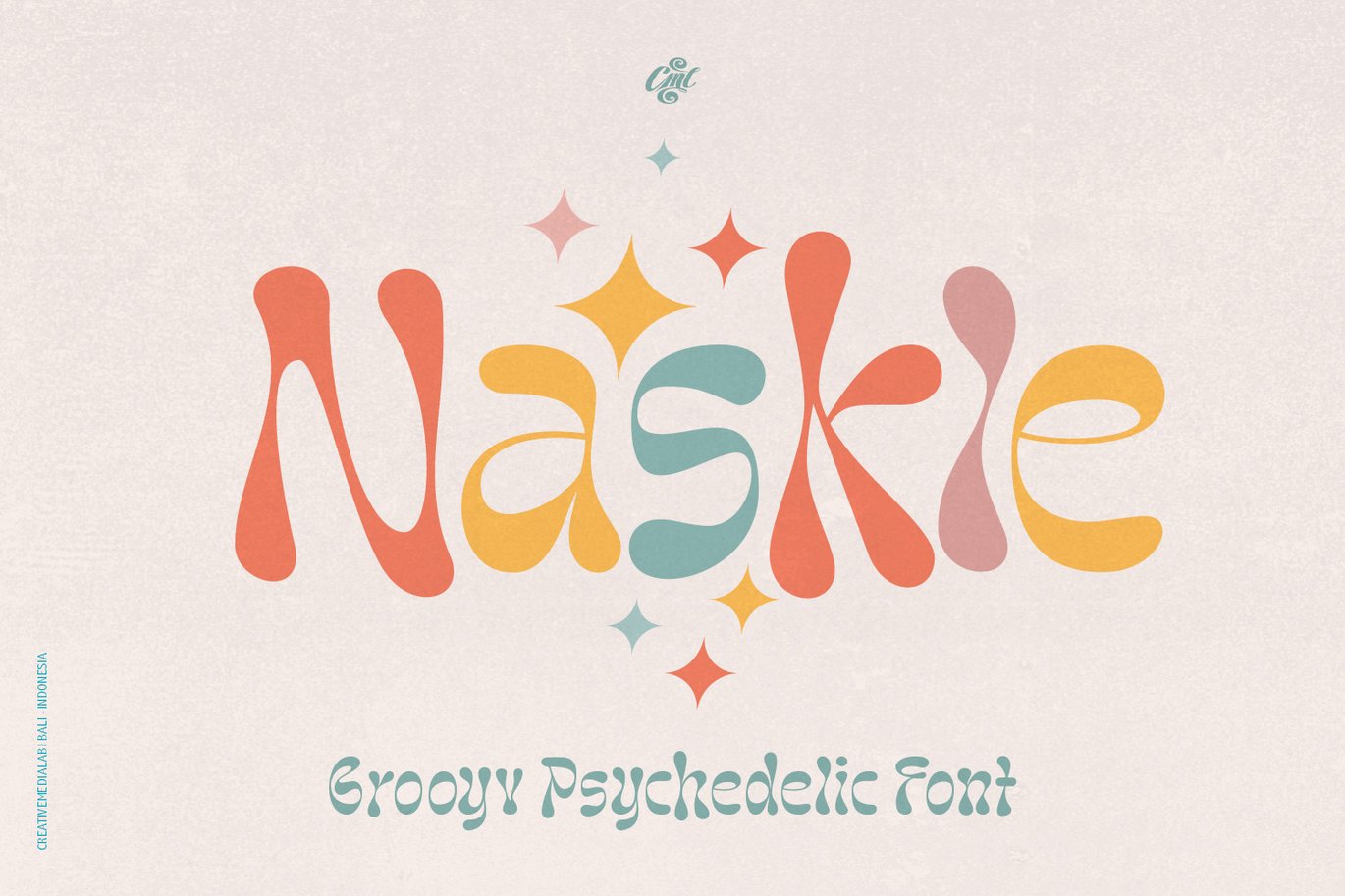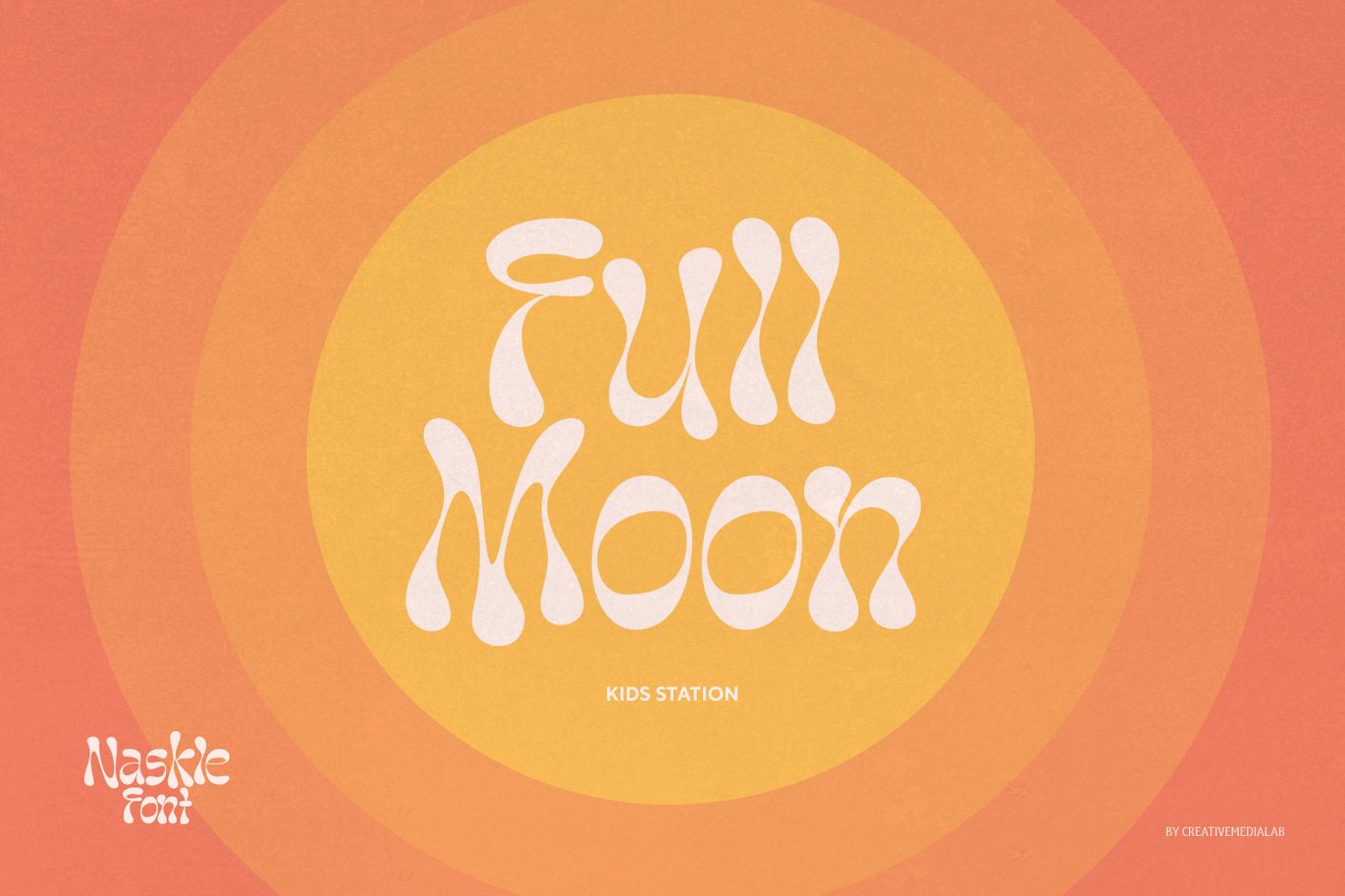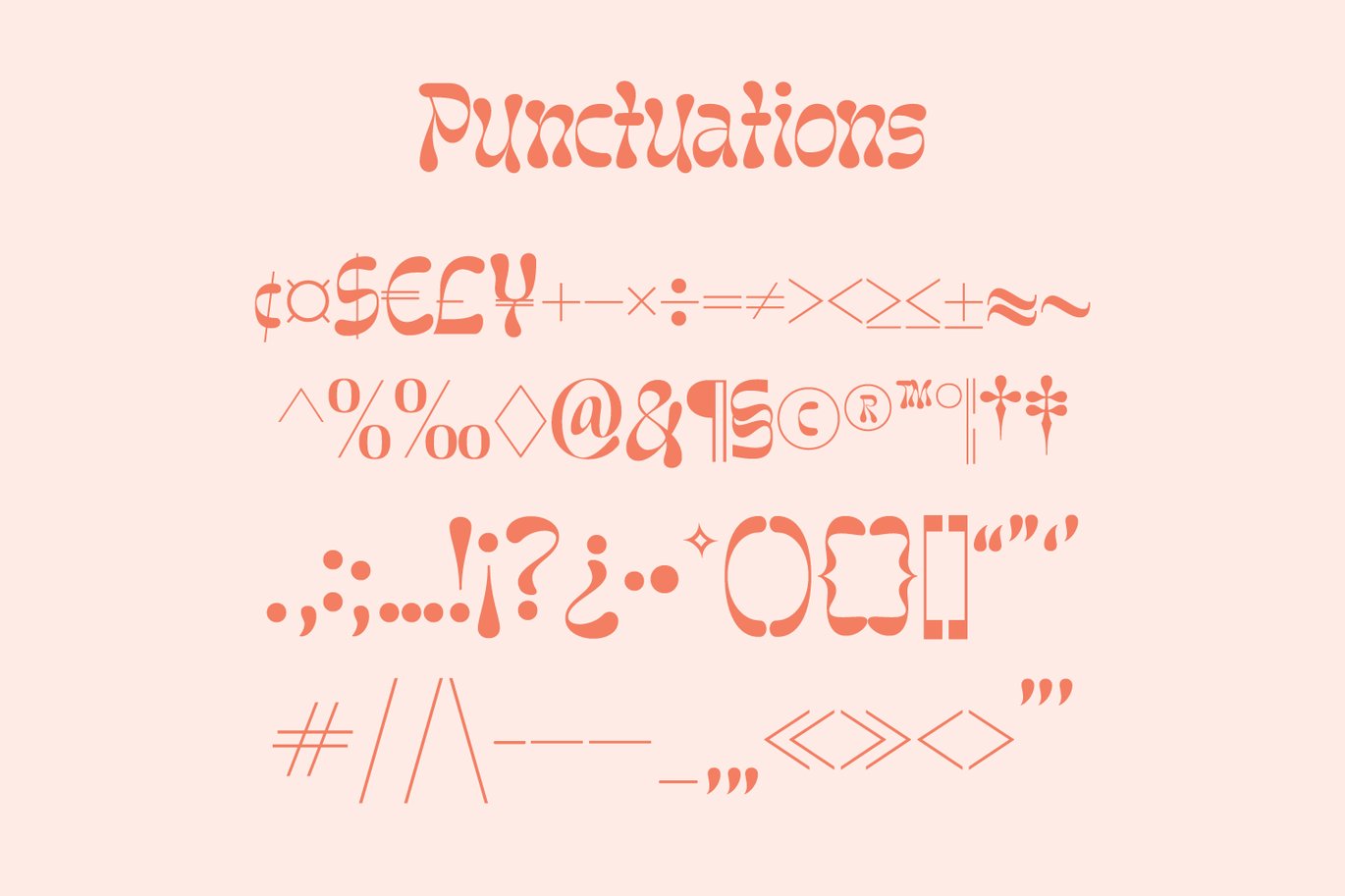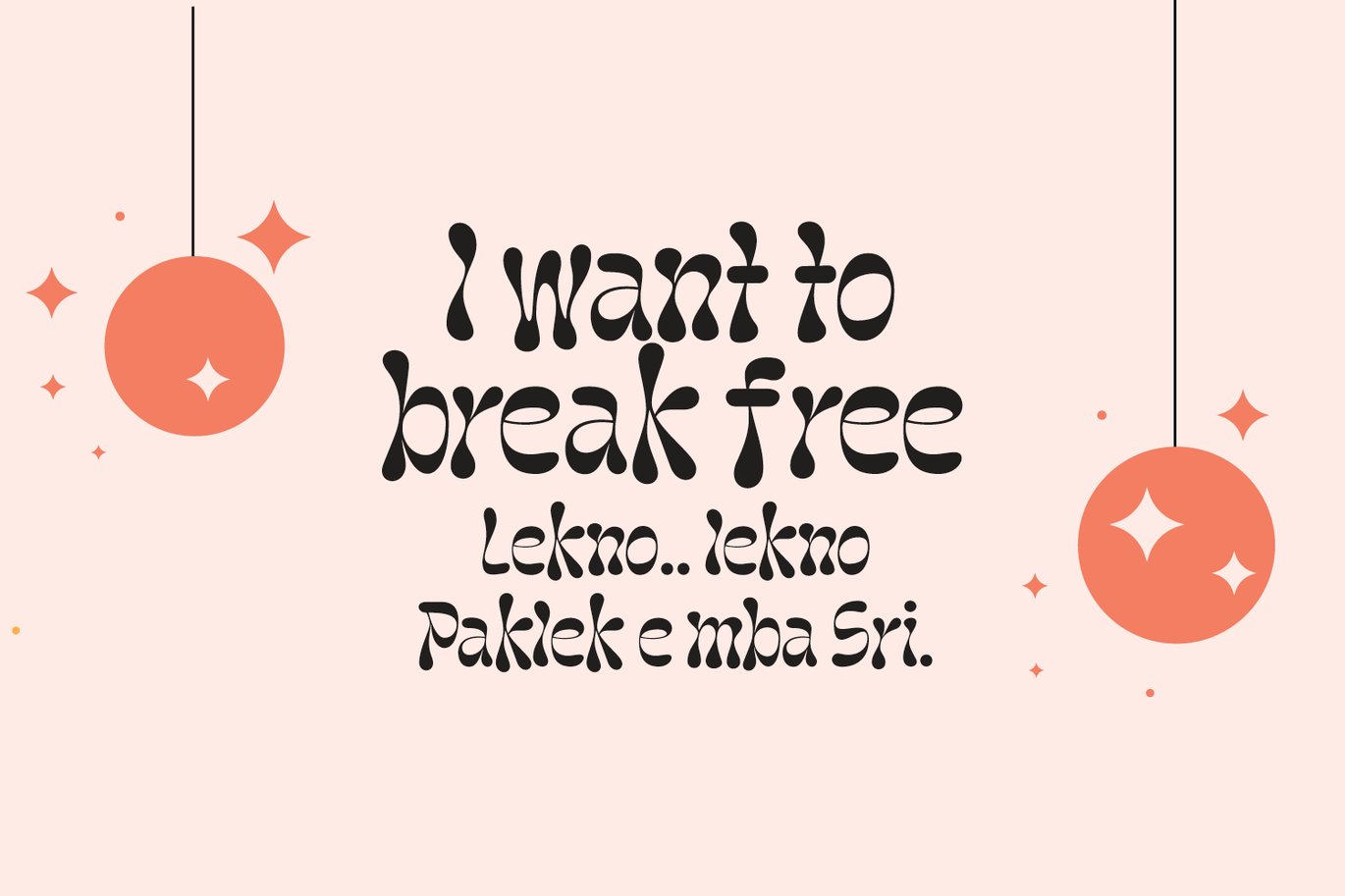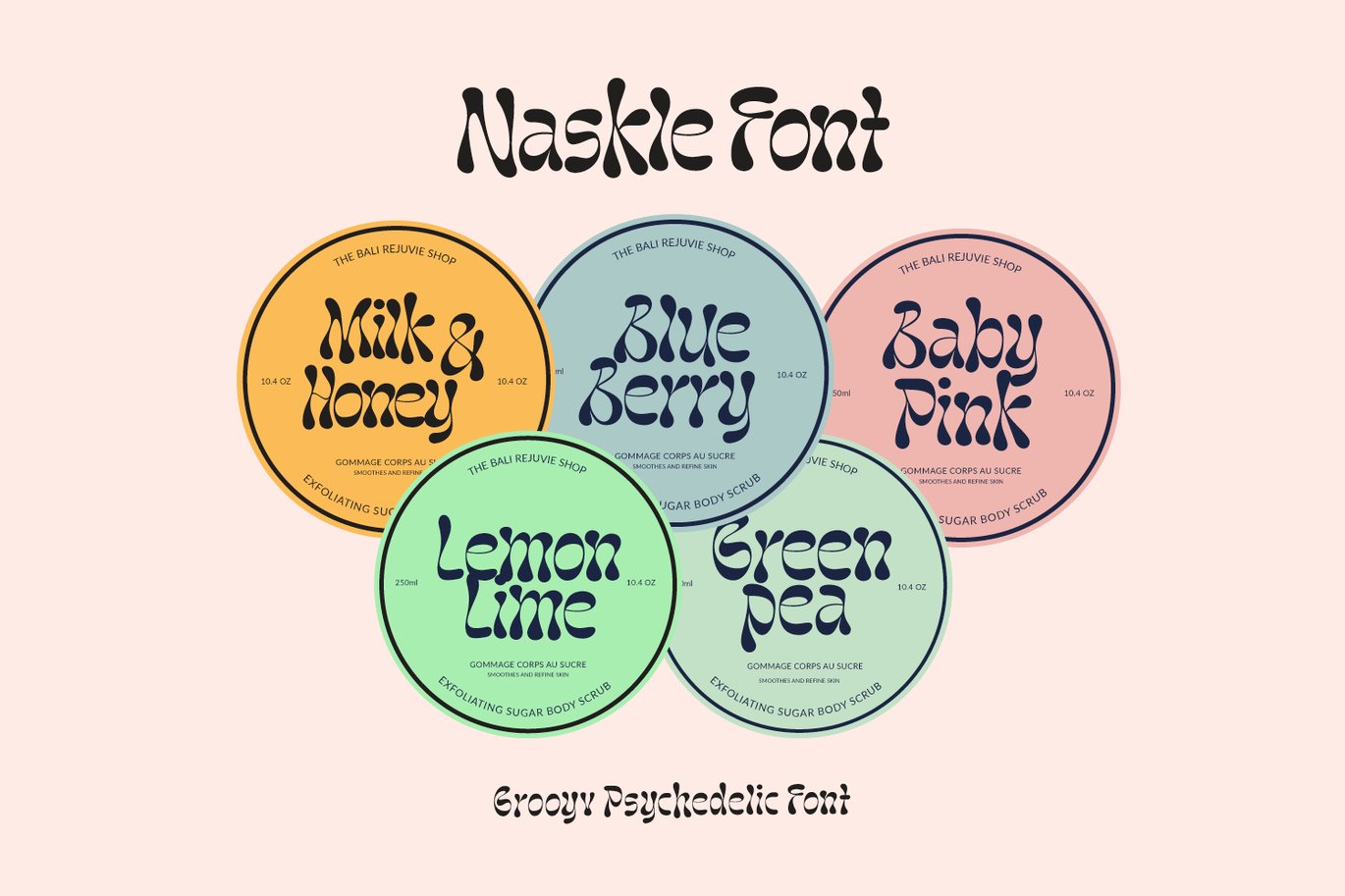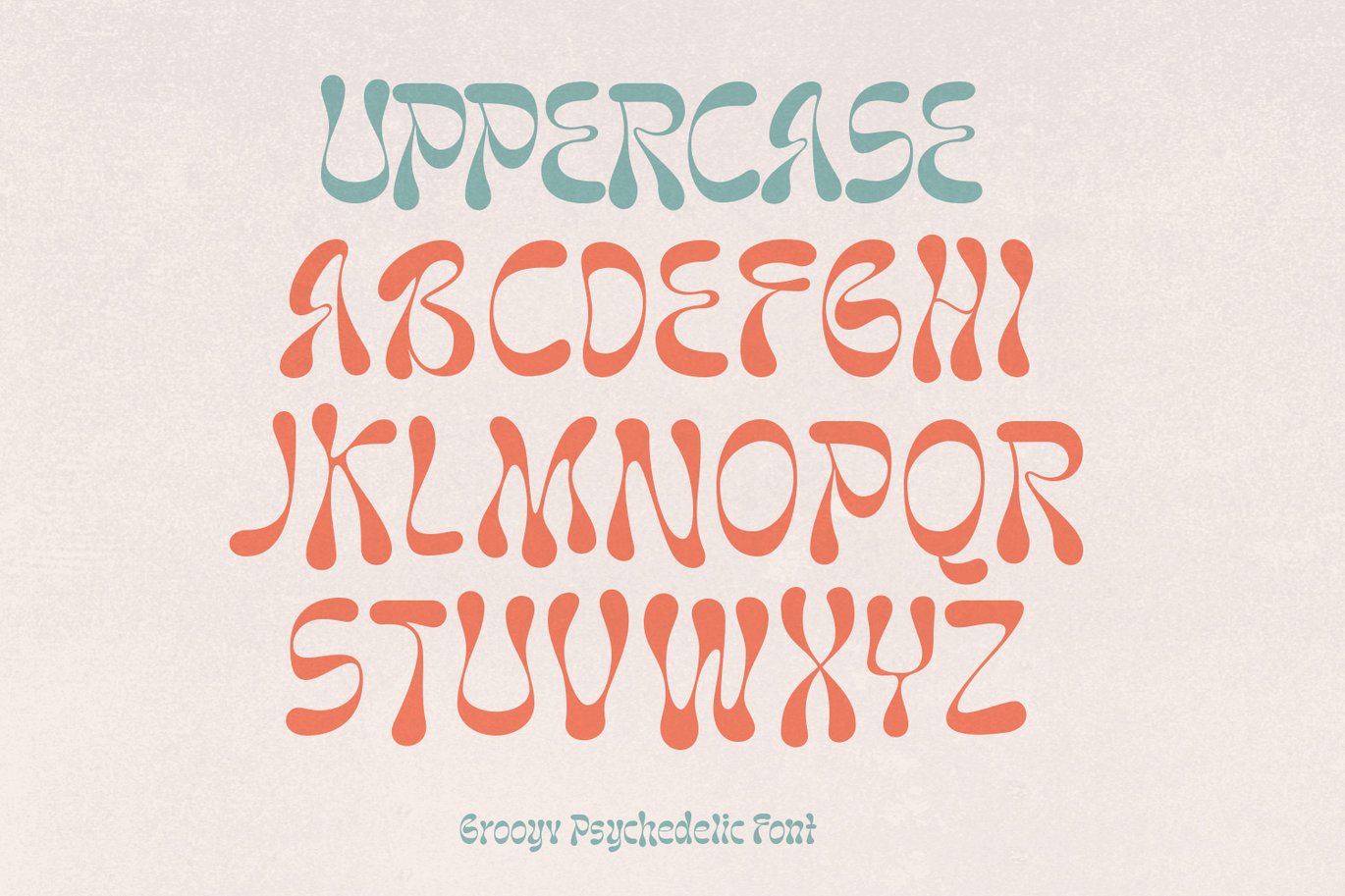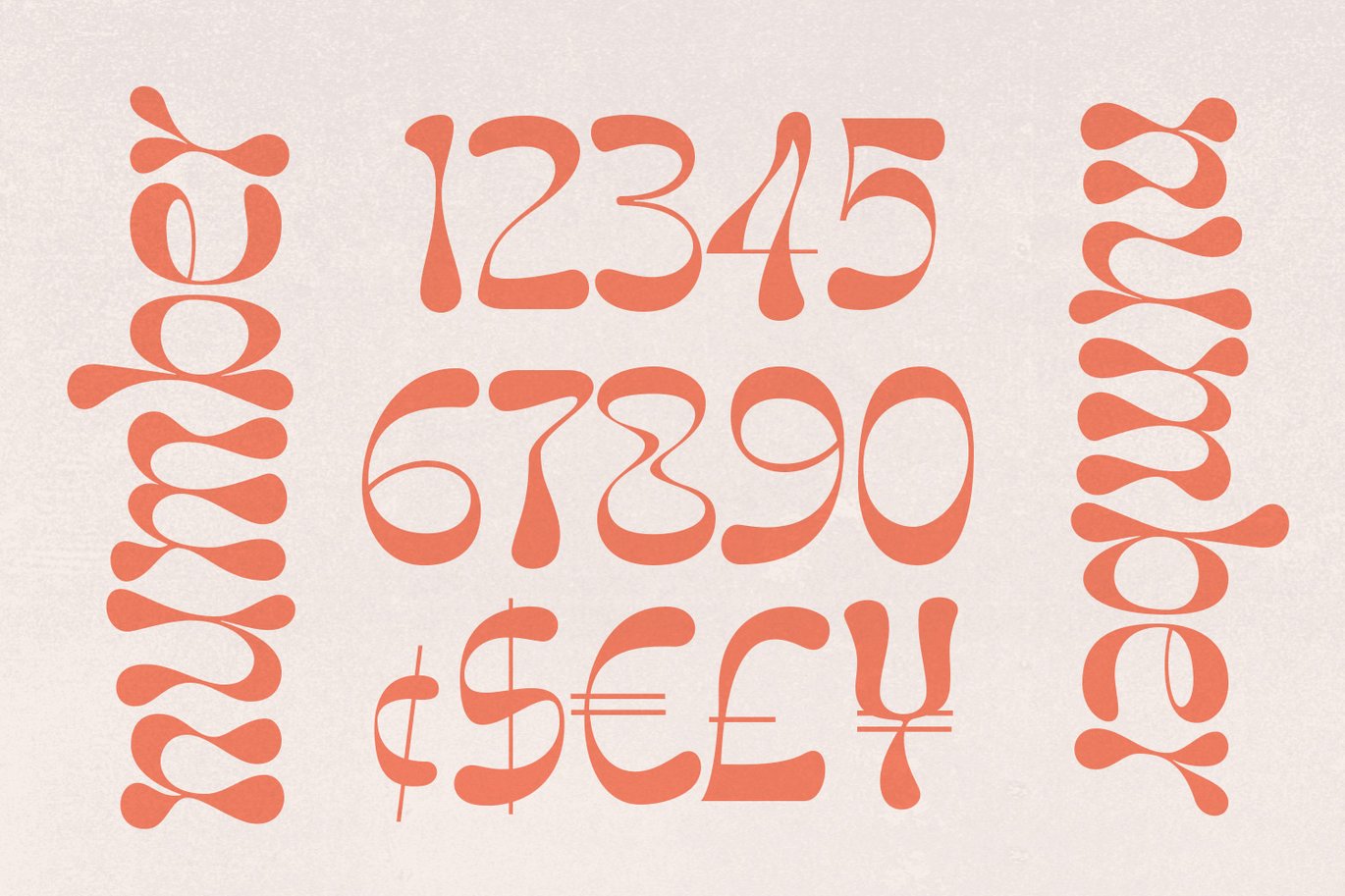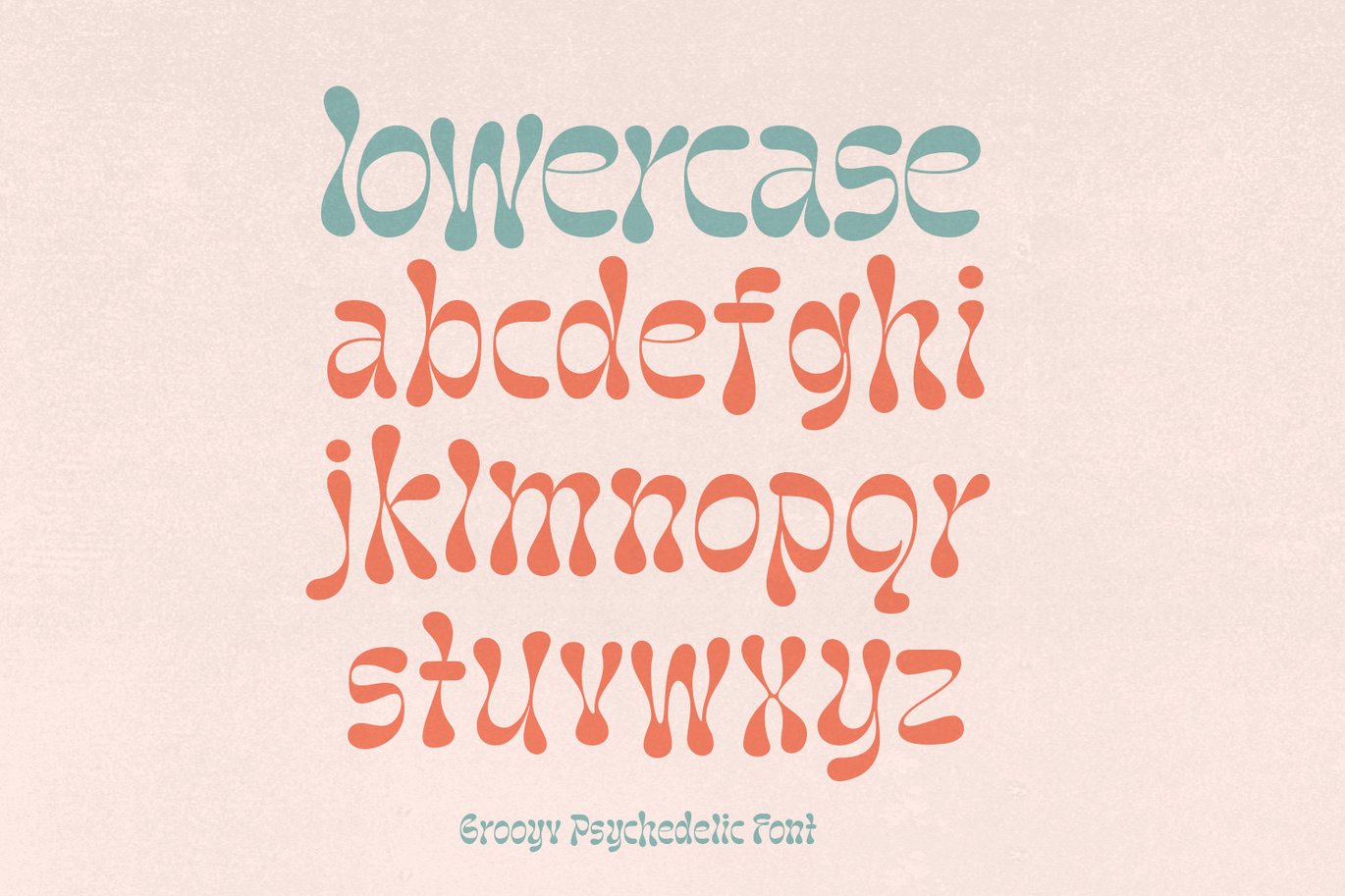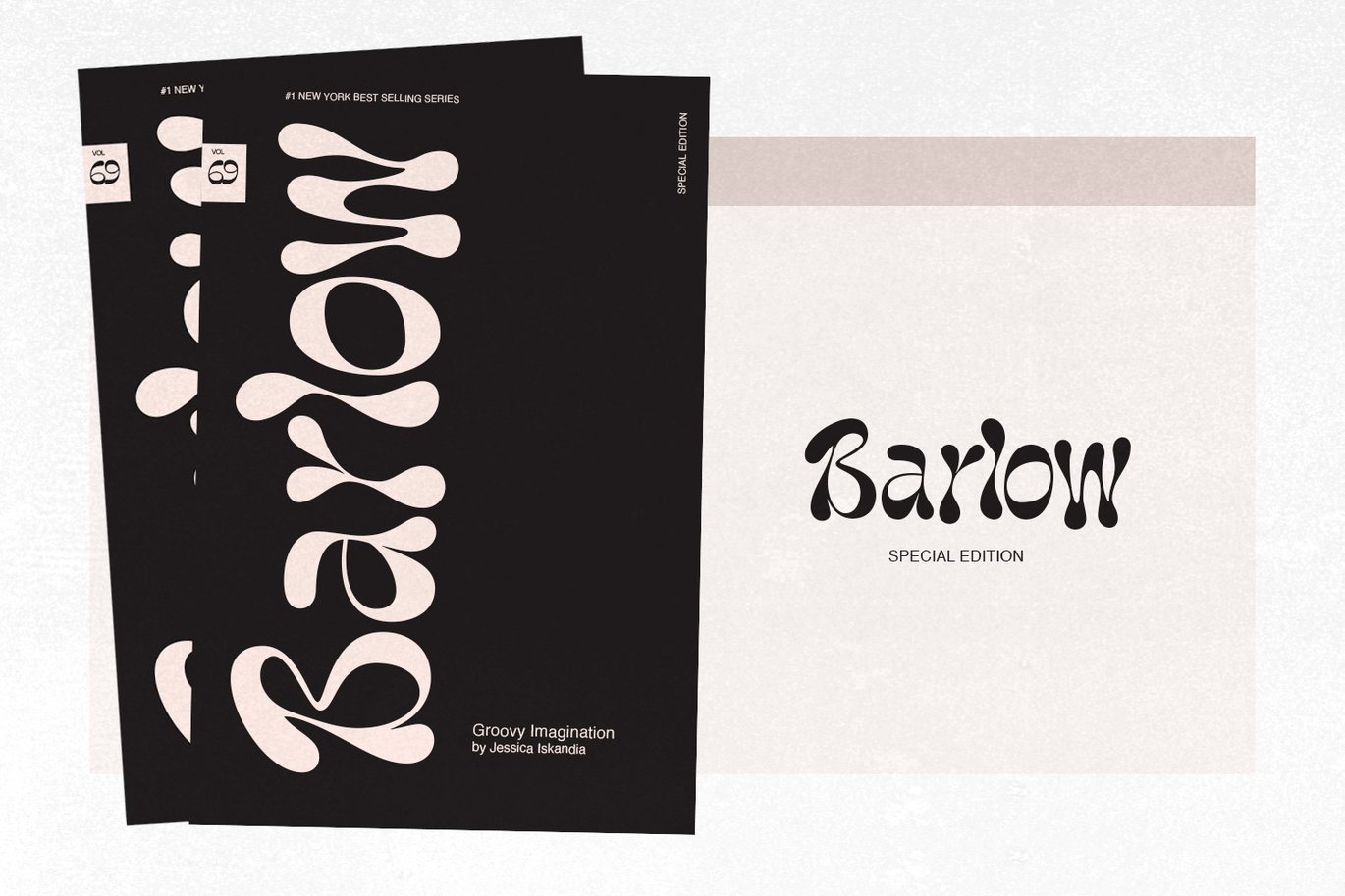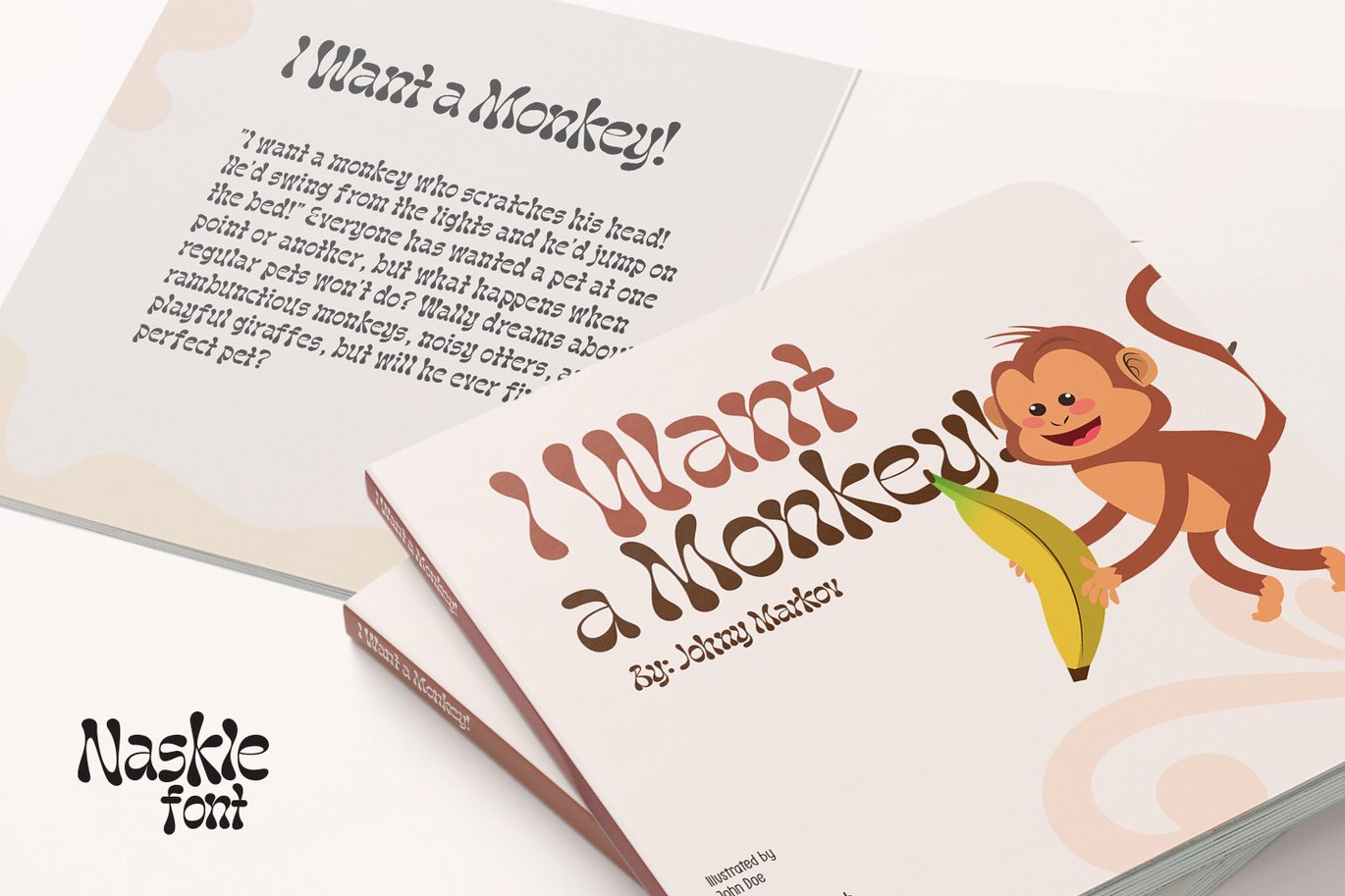
Naskle – Groovy Retro font
Introducing Naskle, fun psychedelic groovy font
Naskle is a fun, funky, and versatile font family, you can use it for summer theme projects, posters, logos, retro or vintage themes, DIY projects, baby, 70s, 80s style, and much more.
Supported Languages
Western Europe, Central/Eastern Europe, Baltic, Turkish, Romanian